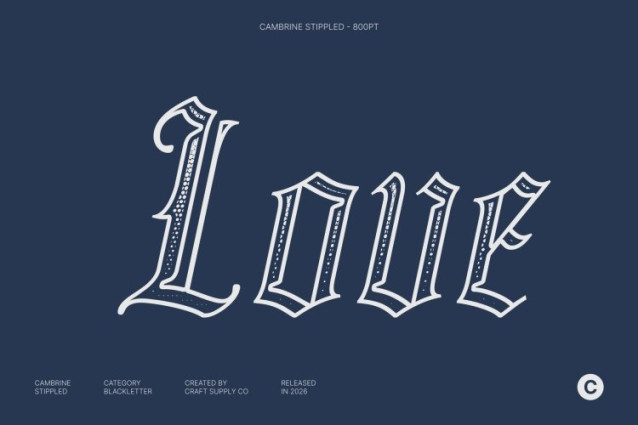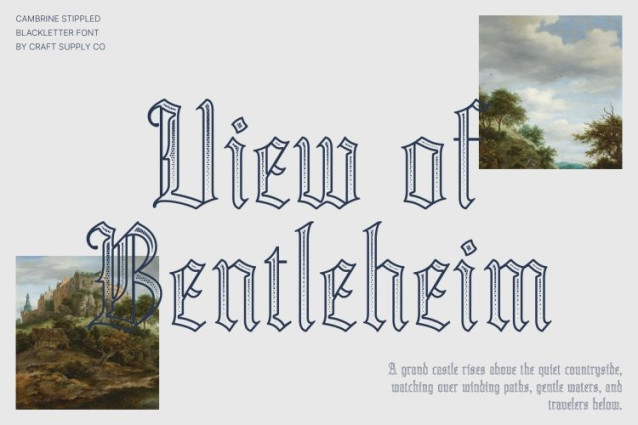
Cambrine Stippled Font
Cambrine Stippled Font This transforms the dramatic elegance of traditional Gothic typefaces into a visually captivating stippled display font. By integrating a dense dotted texture reminiscent of classical ink-dot illustrations, this font creates a rich, artistic surface that blends vintage charm with contemporary sharpness. It feels both historical and fresh perfect for designers seeking a timeless yet bold aesthetic.
Artistic, Dense Stippled Texture
Each letterform is enhanced with a meticulous dotwork pattern that mimics the stippling technique used in engraving and ink illustration. This adds depth, shading, and an organic tactile feel, giving the font a handcrafted, classic impression without compromising readability. The stippled design emphasizes contours, highlights, and intricate Gothic details, making every character a miniature artwork.
Bold, Sharp, and Expressive
This font maintains the sharp angles, ornamental flourishes, and bold strokes of modern blackletter while the stippled texture softens and enriches its visual impact. This balance allows the font to command attention while appearing refined, textured, and unique ideal for creative projects that need both strength and artistry.
Versatile for Vintage-Modern Design
This font thrives in applications ranging from music posters, editorial designs, packaging, and branding to experimental artistic works. Its stippled surface adds a tactile, vintage-modern feel, making it perfect for projects that aim to combine rebellious, historical, or artistic sensibilities with contemporary design trends.